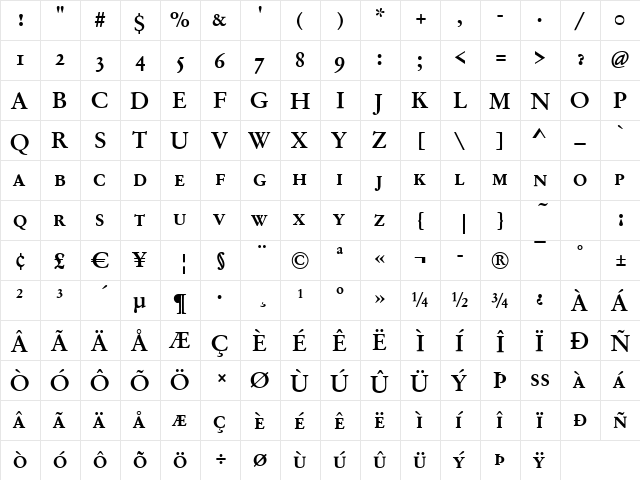
Garfeld-Original-Caps Bold
Design Context for Garfeld-Original-Caps Typeface
Garfeld-Original-Caps takes a measured approach to typography — its balanced proportions and neutral character make it a reliable workhorse for both digital and print work. Its bold stroke weight gives it real presence on the page.